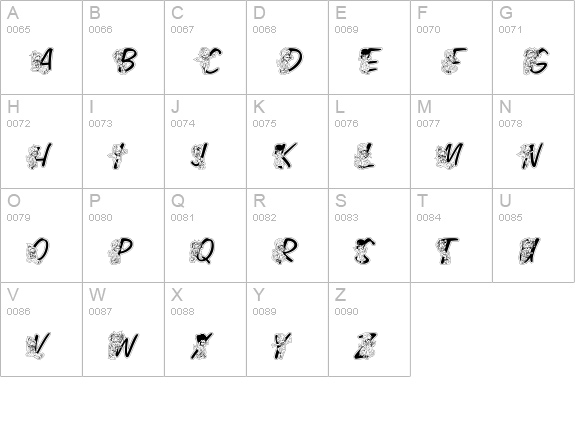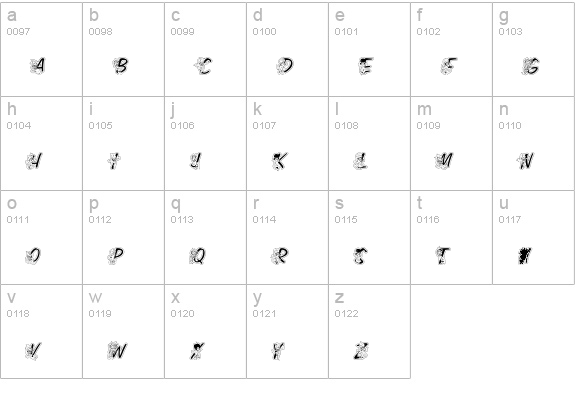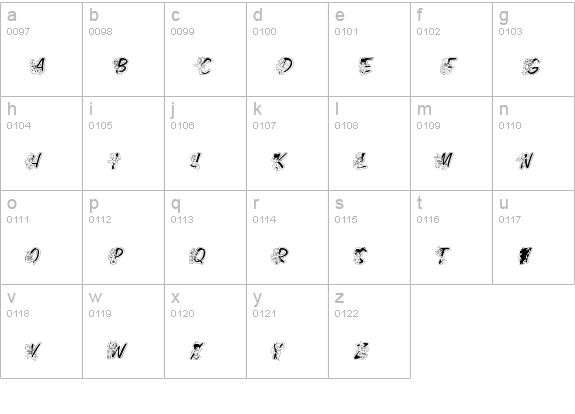
LMS Color Kids Outlined font is a playful and whimsical typeface perfect for adding a touch of fun to your projects. With its charming hand-drawn style and outlined design, this font is ideal for children's books, invitations, posters, and more. The vibrant colors and friendly appearance of LMS Color Kids Outlined font will surely capture the attention of your audience and bring a sense of joy to your creations. Best of all, LMS Color Kids Outlined font is completely free to use! You can easily download this delightful typeface at FontsMarket.com and start incorporating it into your designs right away. Whether you're working on a school project, a birthday invitation, or a creative art piece, LMS Color Kids Outlined font will infuse your work with a lighthearted and playful vibe. Don't miss out on the opportunity to enhance your projects with this charming and cheerful font – download it for free today!